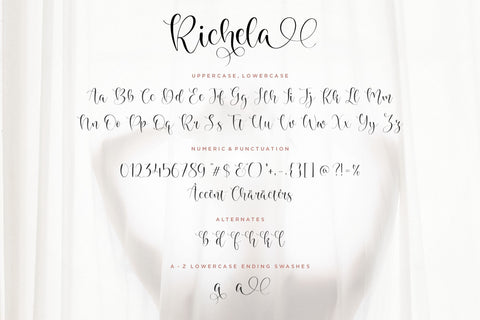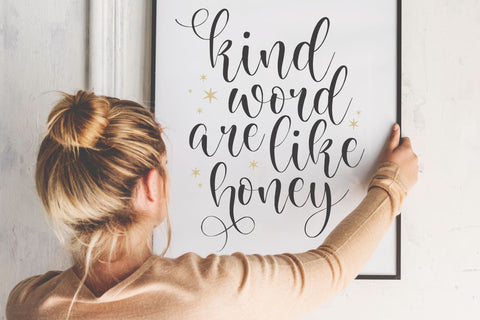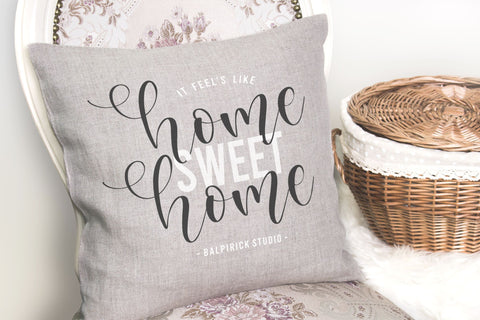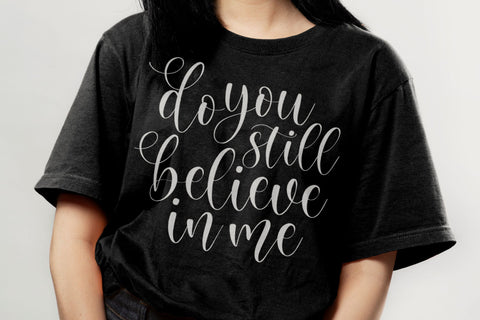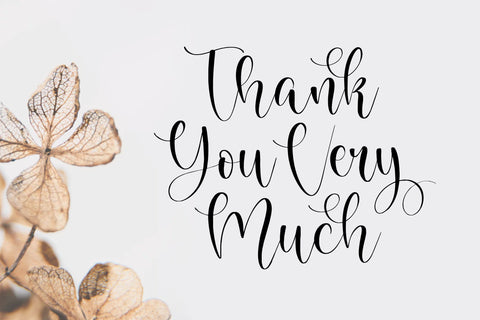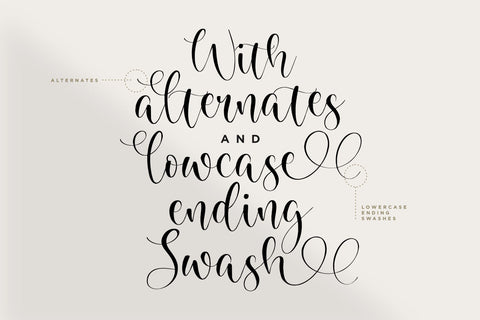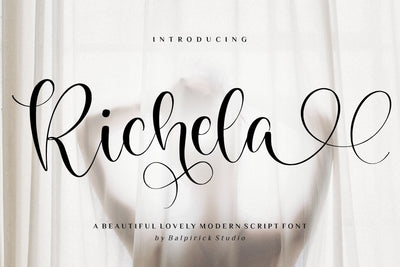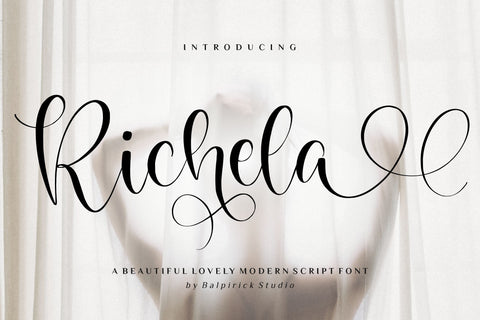
Richela is a Beautiful Lovely Modern Script Font
Proudly Present, Richela Font.
Richela is a Beautiful Lovely Modern Script Font.
Richela is perfect for product packaging, branding project, megazine, social media, wedding, or just used to express words above the background.
Alternates & Lowercase Ending Swashes.